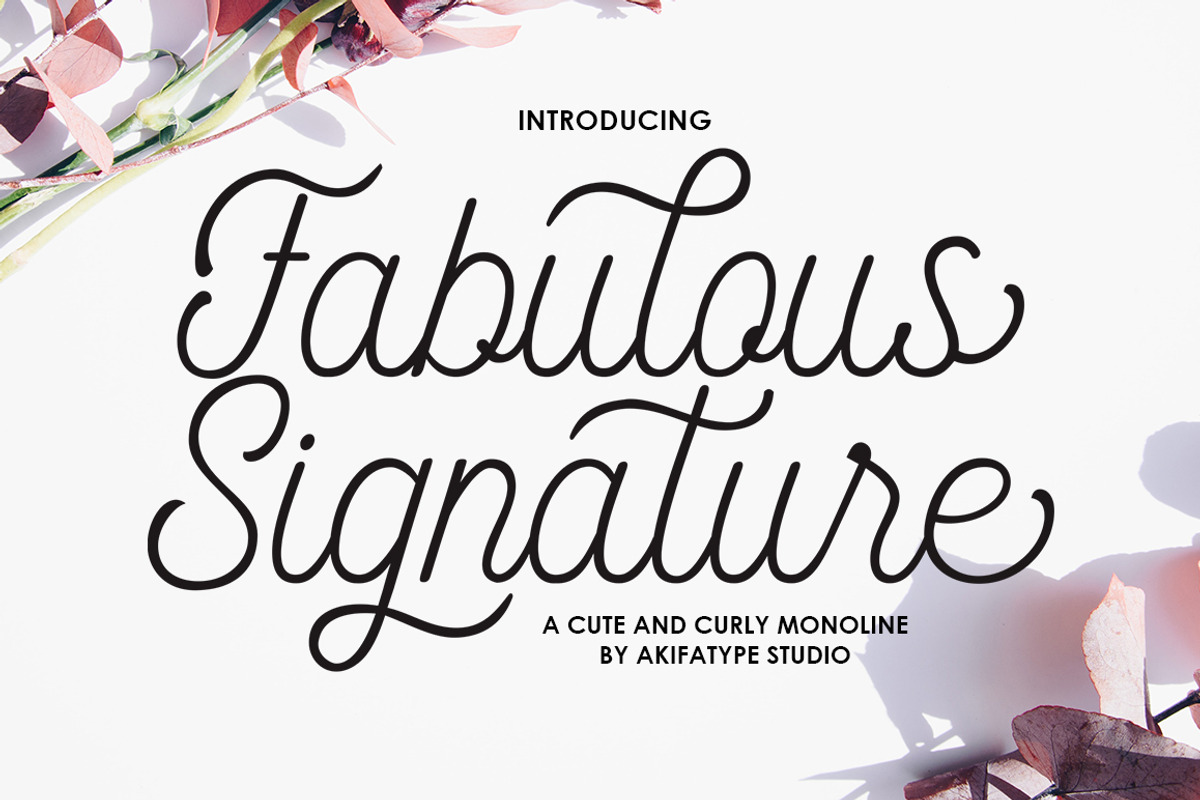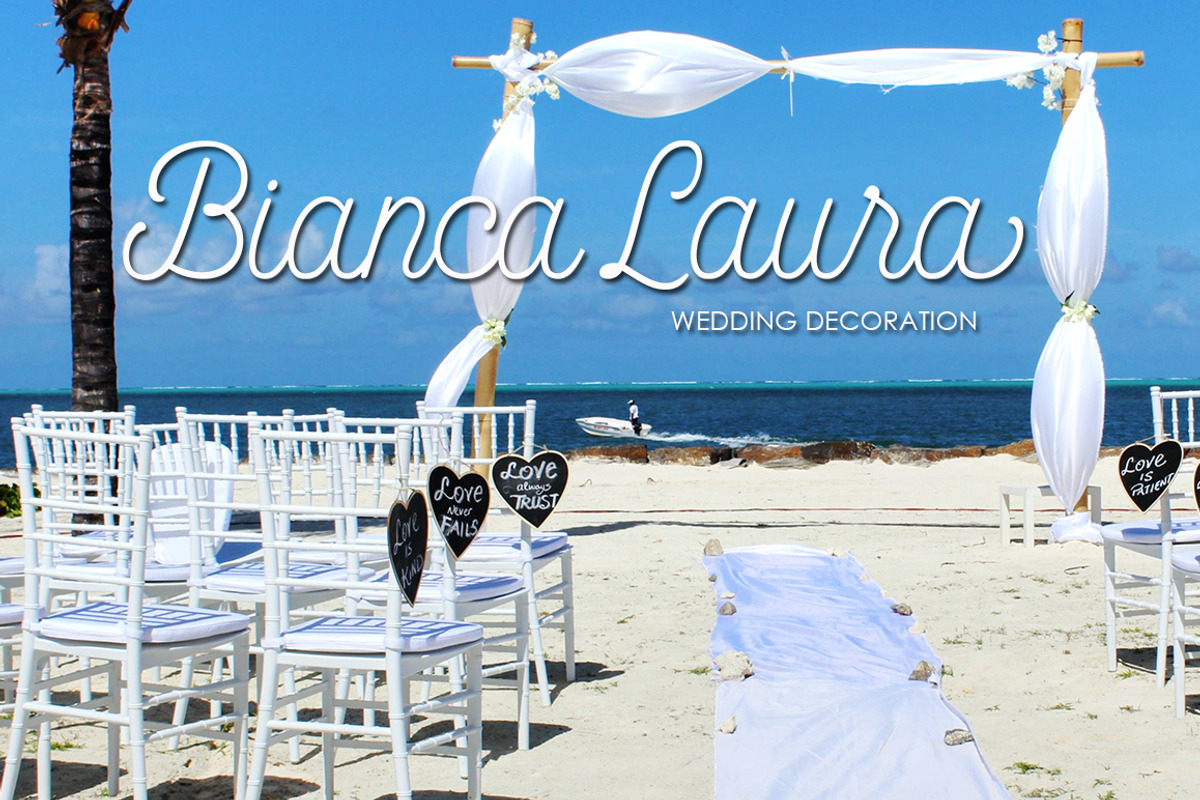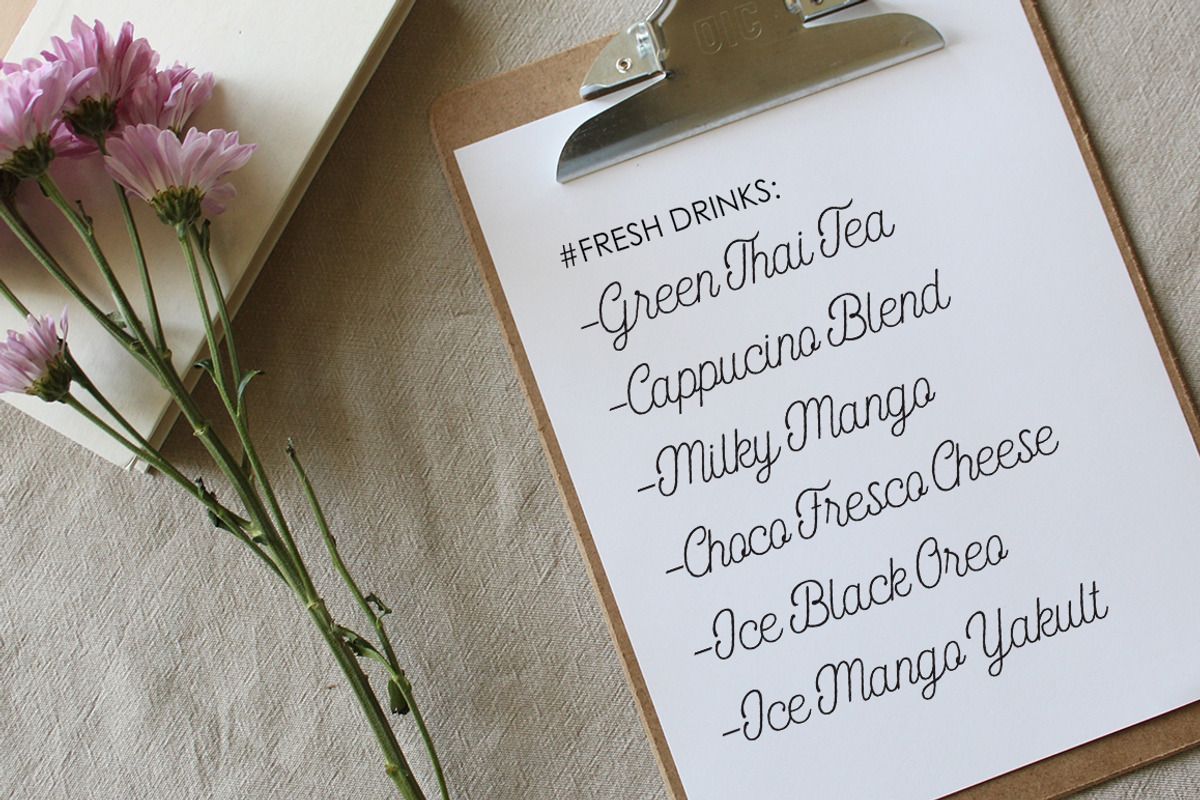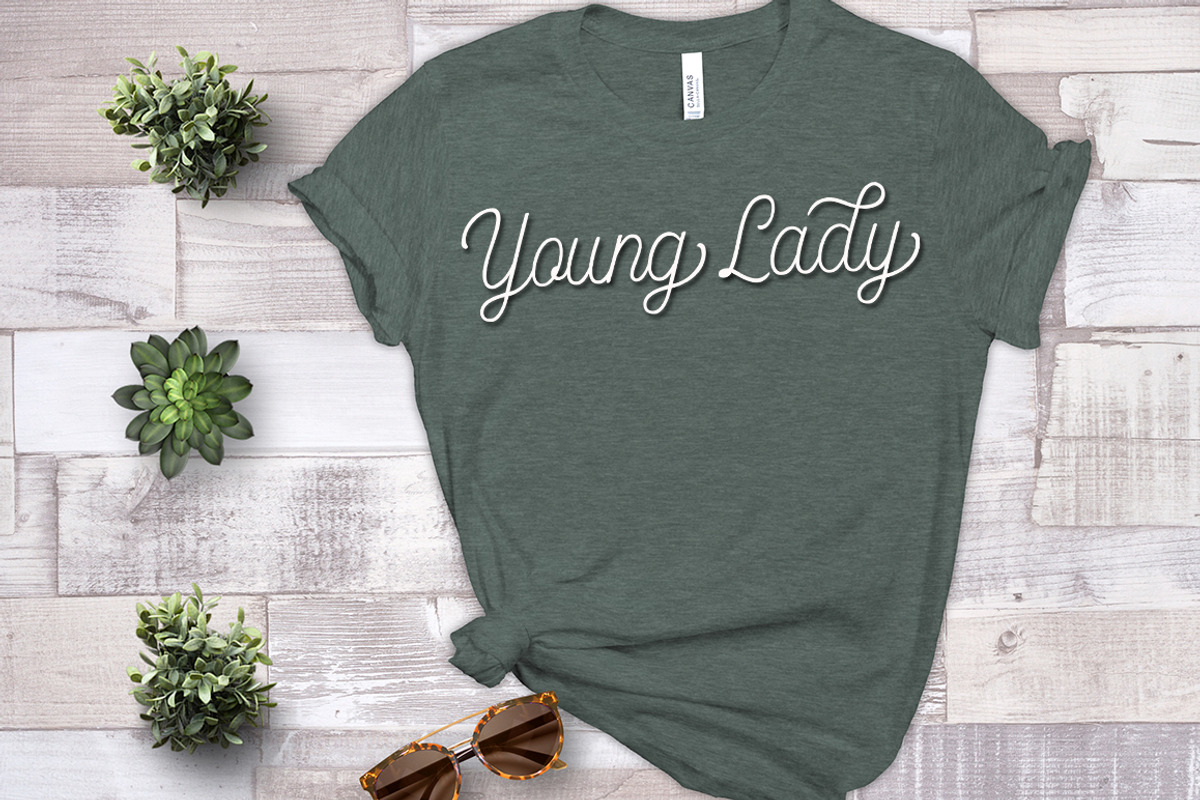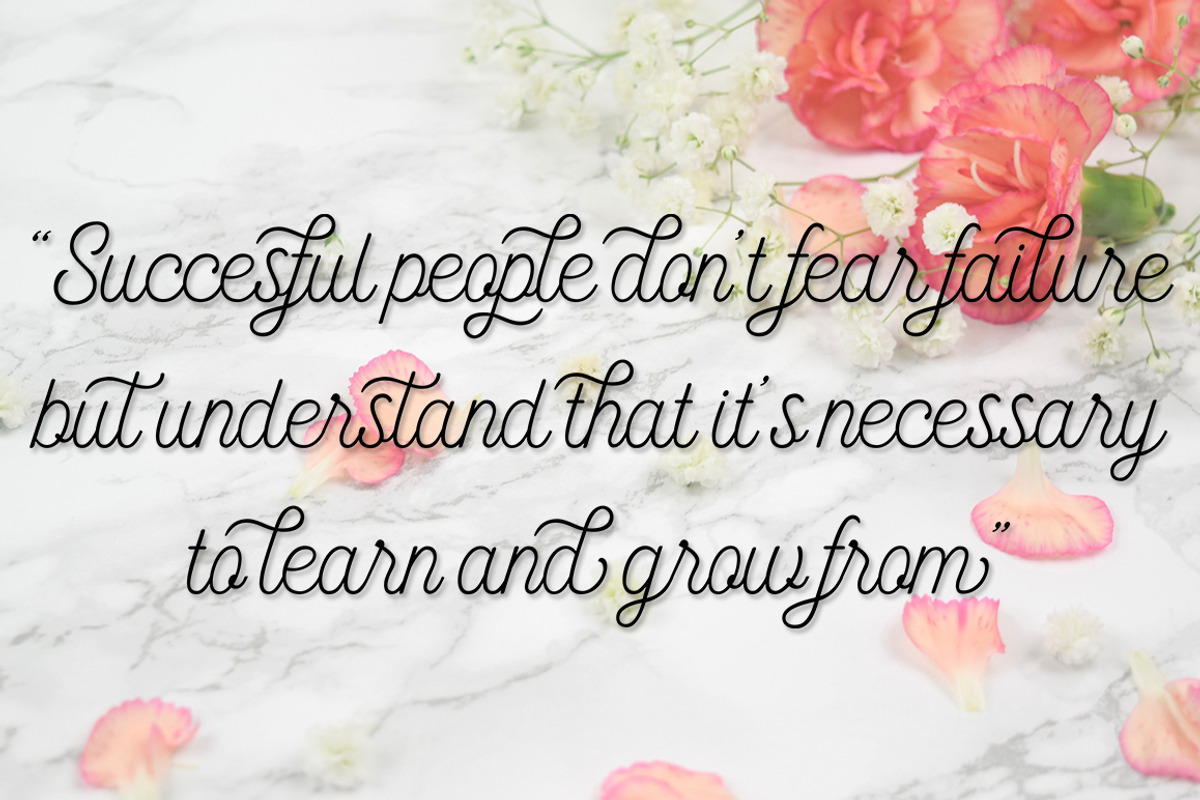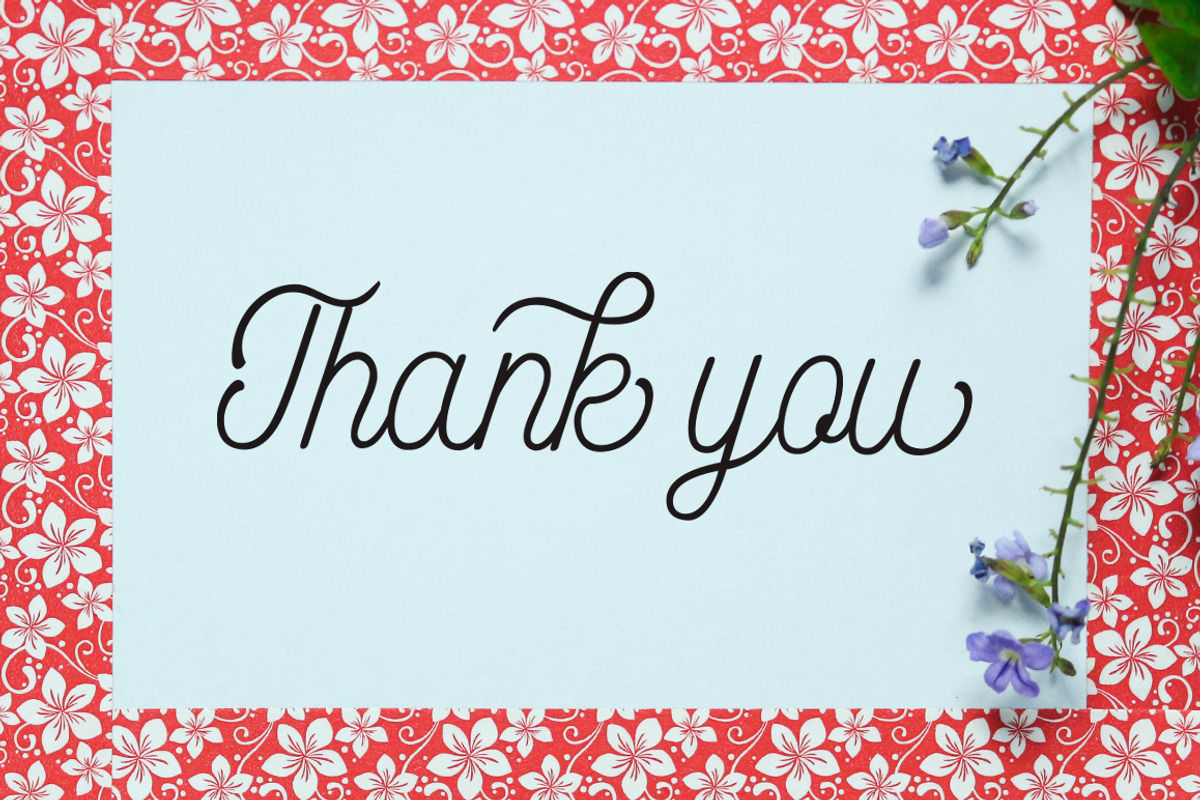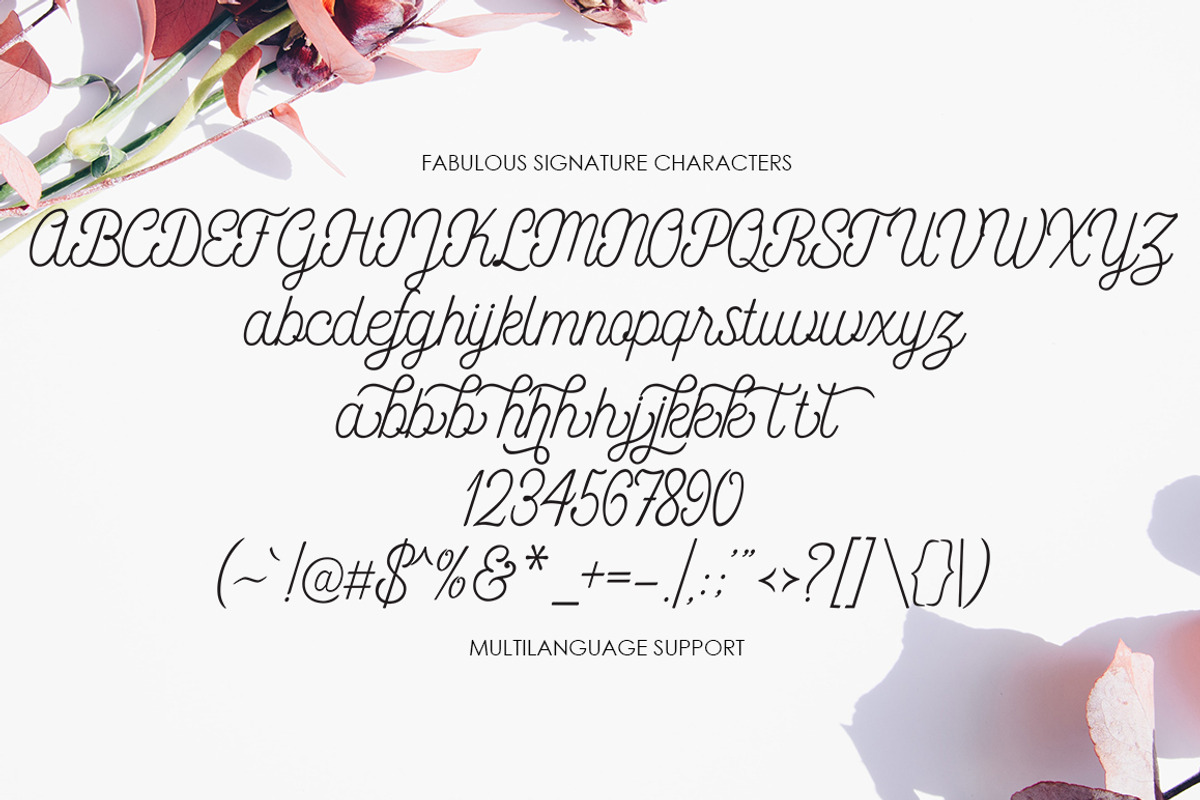
Fabulous Signature
Fabulous Signature is highly legible Monoline Script typeface, get touch of a bold, classic and fun Vintage Script font, With glyphs and opentype features with stylistic alternates. Can be used for various purposes. such as posters, t-shirt, signage, logos, news, badges etc. To enable the OpenType Stylistic alternates, you need a program that supports OpenType features such as Adobe Illustrator CS, Adobe Indesign & CorelDraw X6-X7, Microsoft Word 2010 or later versions.